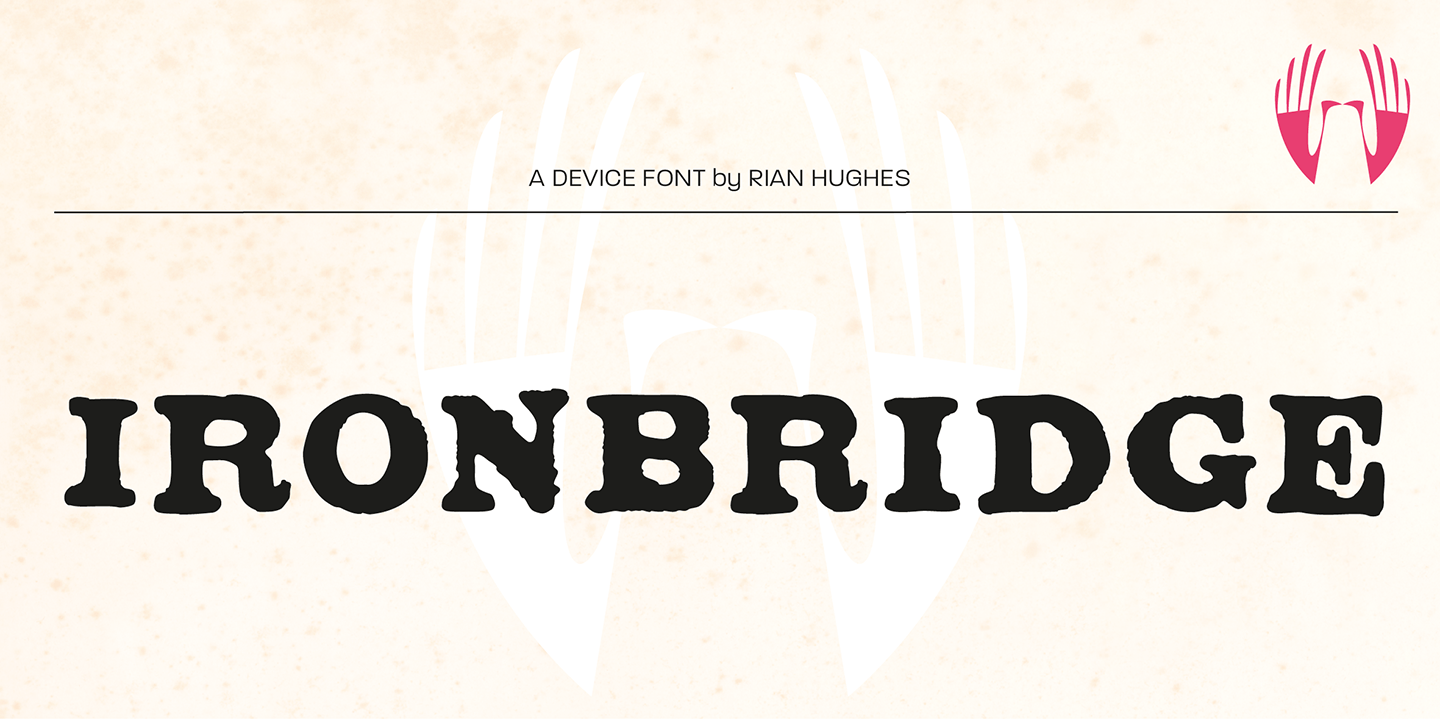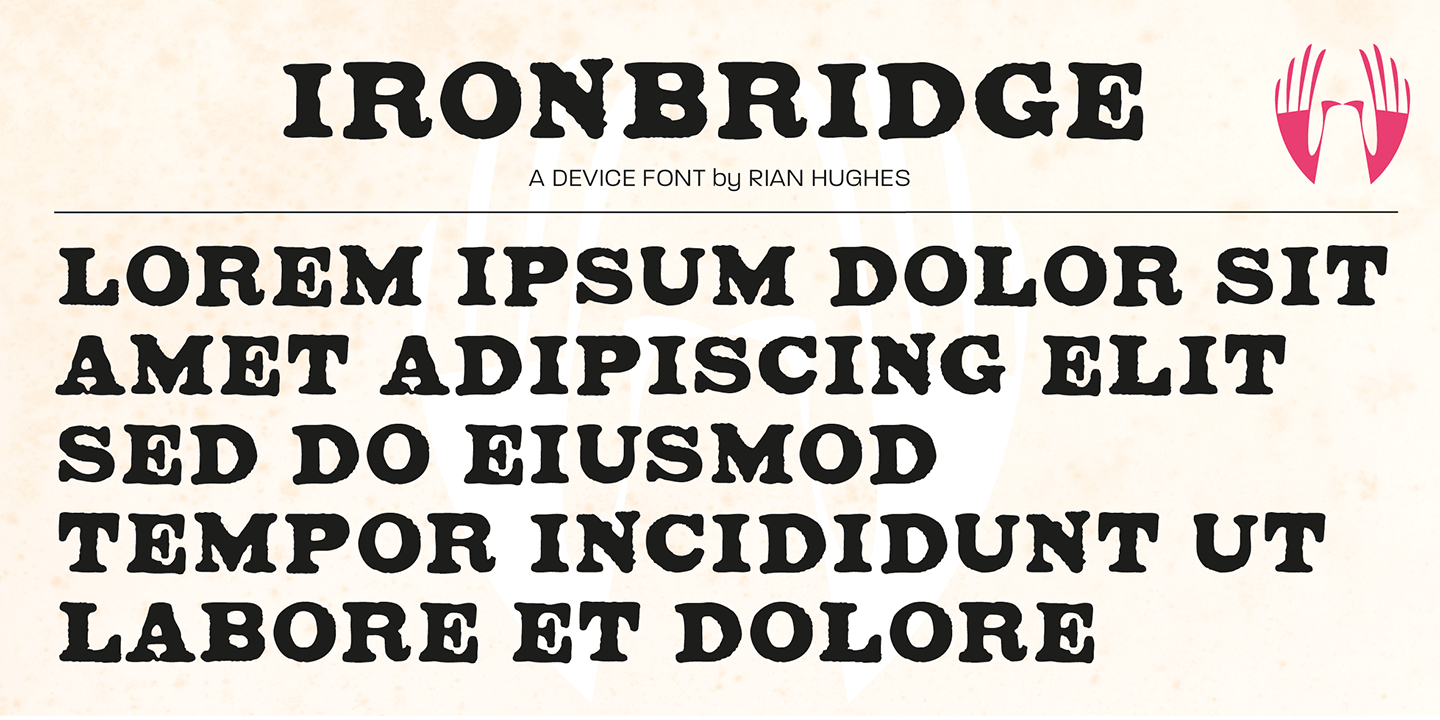
Ironbridge
An Industrial Revolution cast iron plaque from Bristol Temple Meads Station serves as inspiration for this antique font. The plaque commemorates the design contribution of Isambard Kingdom Brunel, who in March 1833 at 27 was appointed chief engineer of the Great Western Railway, the line that links London to Bristol. This helped established Brunel as one of the world's leading engineers. Impressive achievements along the route include viaducts at Hanwell and Chippenham, Maidenhead Bridge, Box Tunnel and Bristol Temple Meads Station.
Use Ironbridge to evoke an industrial British heritage, gothic spookiness or eroded heavy metal.